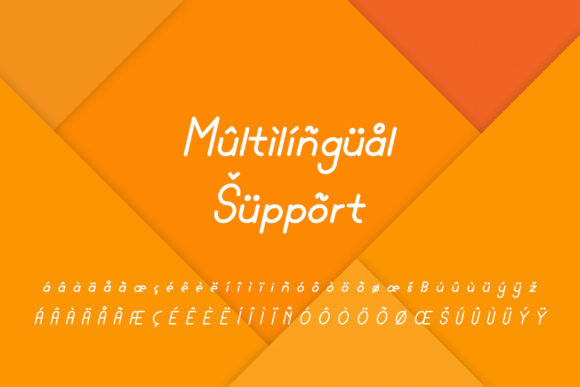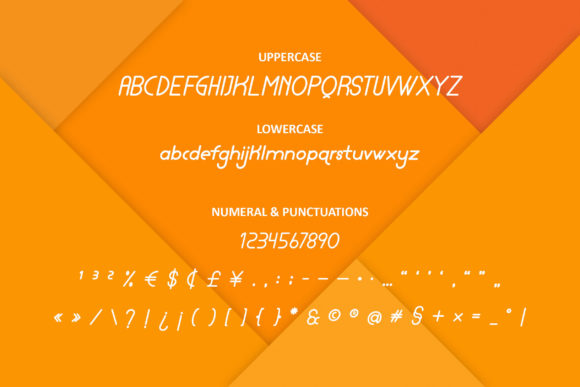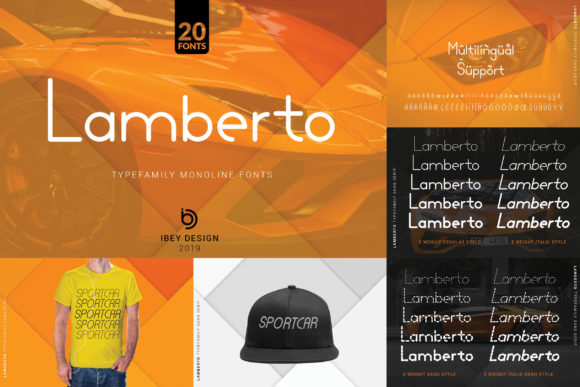
Introduction to Lamberto Bold Italic Font
As a designer, there’s nothing quite like the thrill of stumbling upon a font that sparks an idea. Maybe it’s the perfect serif for a headline, or the quirky flair for a creative project’s title. For me, it’s often the bold and contemporary fonts that really get my creative juices flowing. And Lamberto Bold Italic Font is one of those game-changers.
With its incredibly bold and modern approach to classic lettering, Lamberto Bold Italic Font is a design resource that’s sure to elevate any project. Whether you’re working on a high-quality branding campaign or a simple social media graphic, this monoline display font is sure to make a statement. Plus, with its transparent background, you can easily layer it over any image or color without losing any detail.
Key Features of Lamberto Bold Italic Font
- Unique and creative font style suitable for various design projects, including logos, branding, and creative visual content.
- High-quality font with a transparent background, allowing for seamless integration into various design elements.
- Perfect for designers looking to add a touch of elegance and sophistication to their creative project, the Lamberto Bold Italic Font is a versatile design tool.
- With its bold and italic style, this font is ideal for headings, titles, and other design elements that require attention and emphasis.
Honest Review: Lamberto Bold Italic Font
I recently had the opportunity to work with the Lamberto Bold Italic Font, and I must say it’s been a game-changer for my creative projects. The font is perfect for any design resource that requires a bold and eye-catching touch.
- ✨ The font is highly versatile and can be used for a variety of creative projects, from brochures to posters.
- ✨ The bold italic style gives any text a unique and attention-grabbing quality, making it perfect for headings and titles.
While the Lamberto Bold Italic Font is a great design resource, there are a few limitations to consider. For example:
- ⚠️ The font may not be suitable for designs that require a transparent background, as it may not display well in certain situations.
- ⚠️ The font is not suitable for use in small text sizes, as it can be difficult to read.
Overall, I’m extremely impressed with the Lamberto Bold Italic Font. It’s a high-quality design resource that is sure to elevate any creative project. With its versatility and unique style, it’s a must-have for any designer looking to add some flair to their work.
The Lamberto Bold Italic Font is commonly used in creative projects such as logo design, branding, and typography-based designs. It can also be used in business presentations, brochures, and other marketing materials where a high quality and professional font is required.
Is the Lamberto Bold Italic Font suitable for high-resolution designs?
Yes, the Lamberto Bold Italic Font is designed to be a high-quality font, making it suitable for high-resolution designs. It’s been optimized for use at large sizes and high resolutions, ensuring that it remains crisp and clear even in demanding design projects.